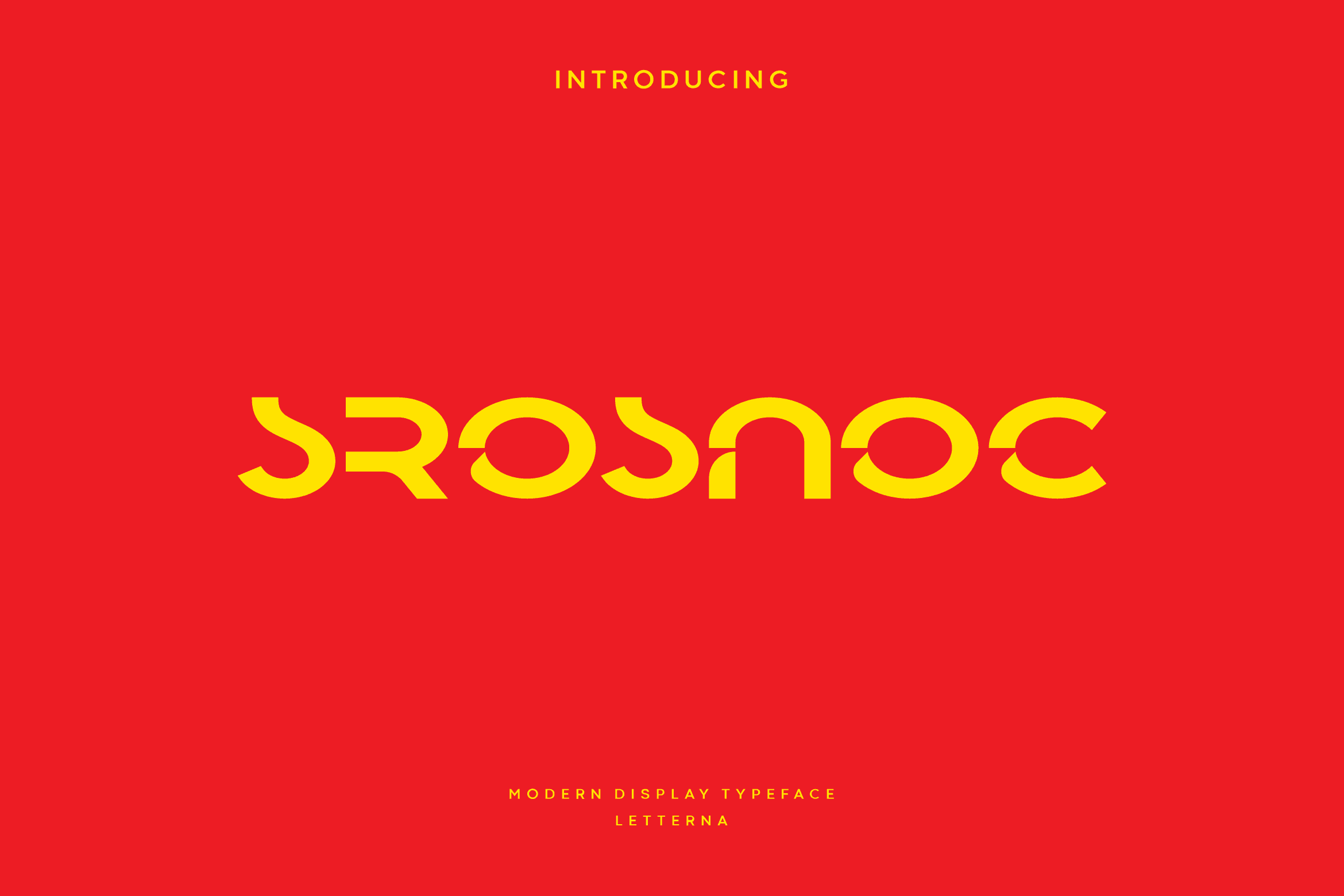
Discover the Elegance of Srosnoc: A Modern Display Font In the ever-evolving world of typography, finding a typeface that strikes the perfect balance between modern aesthetics and timeless elegance can be a daunting task. Enter Srosnoc, a stunning di...